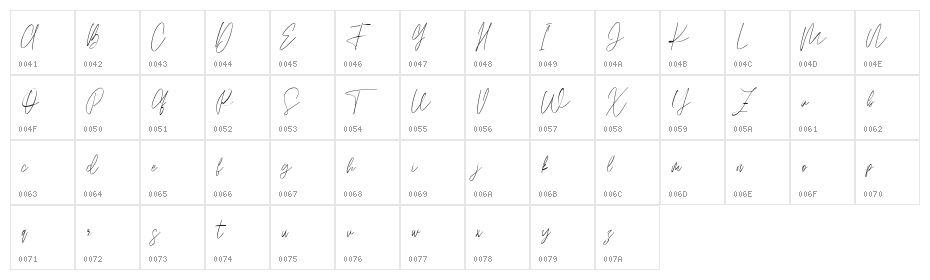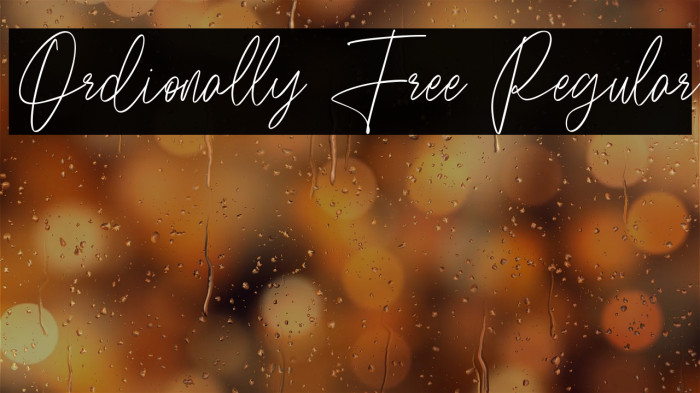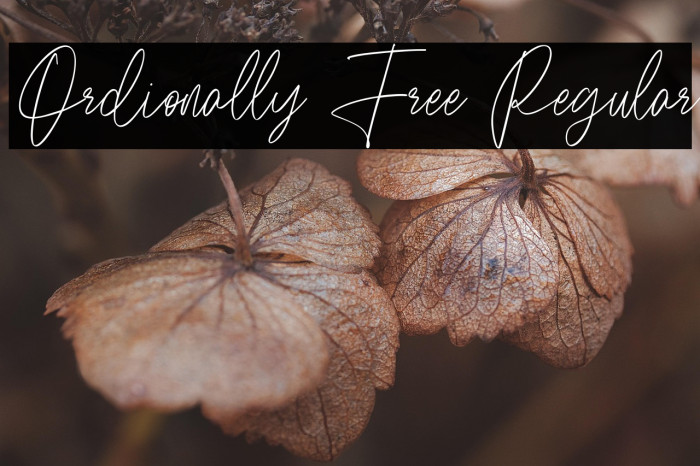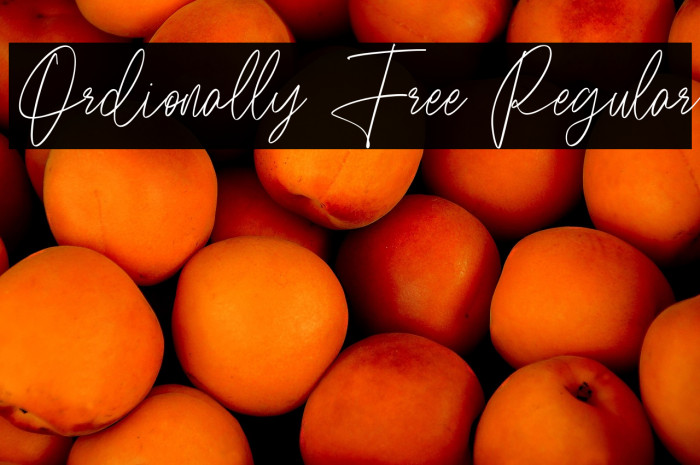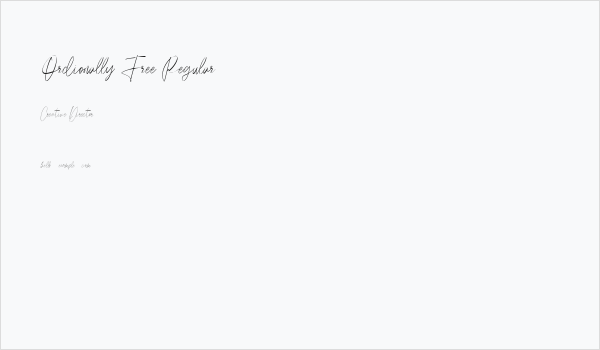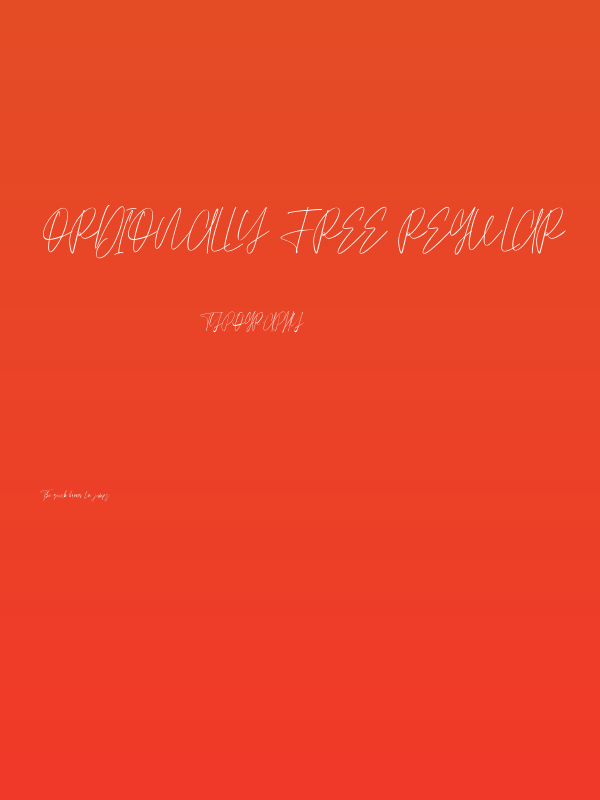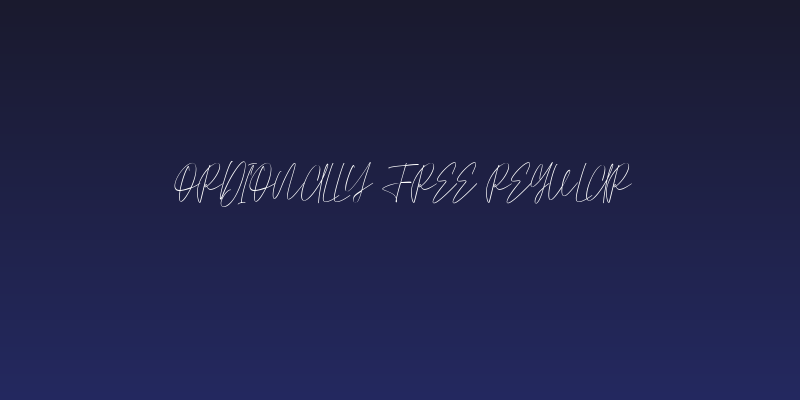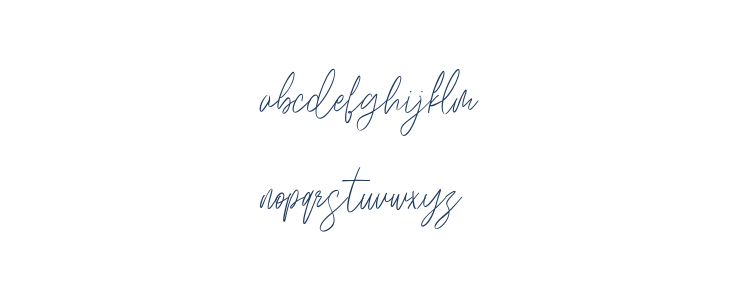
Ordionally Free Regular Font
Ordionally Free Regular Description
This font features a flowing, cursive style with elegant, elongated letterforms that convey a sense of sophistication and grace. The script is characterized by its smooth, continuous strokes that connect each letter seamlessly, creating a harmonious and fluid appearance. The uppercase letters are bold and prominent, while the lowercase letters maintain a delicate and refined look. The overall design is reminiscent of traditional calligraphy, yet it retains a modern touch with its clean lines and balanced proportions. This font is perfect for projects that require a touch of elegance and a personal, handwritten feel.
| Use Case | Logos, Invitations, Personal Correspondence |
| Proposed Projects | Ideal for wedding invitations, greeting cards, branding, and any design requiring a personal, elegant touch. |